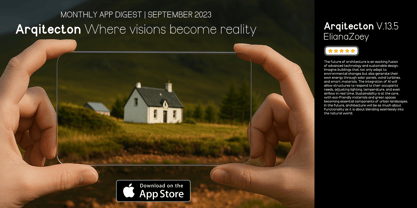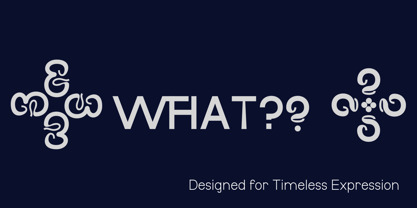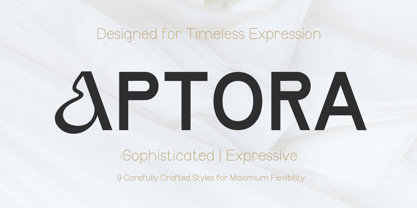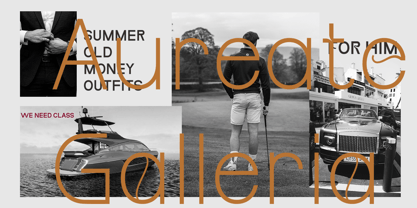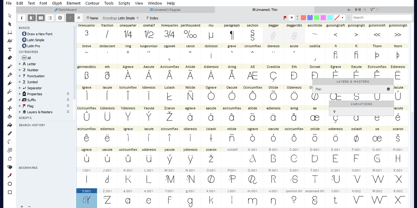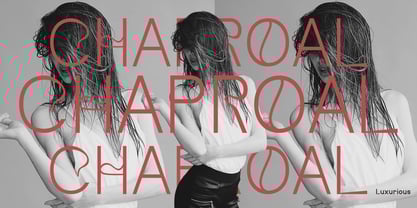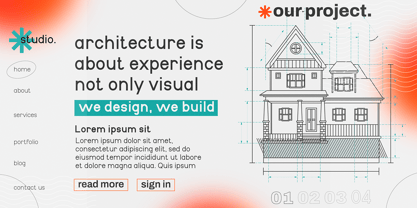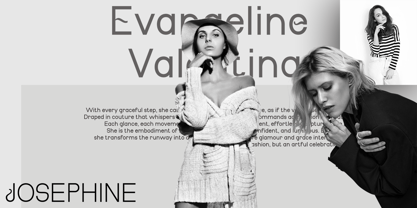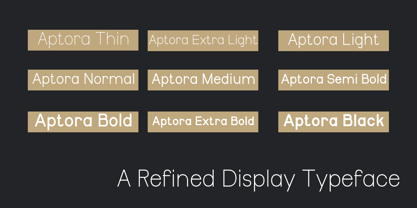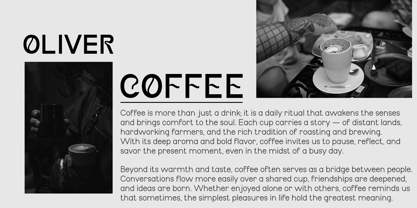
Aptora
The Aptora Font Family was designed by Teuku Muhammad Zaki and published by Zaki Creative. Aptora contains 9 styles. More about this family
Aptora is a modern display typeface crafted for timeless expression. Featuring clean, elegant lines and exceptional versatility, Aptora comes in 9 carefully designed weights — from Thin to Black — offering maximum flexibility for a wide range of creative needs.
Perfect for branding, editorial layouts, posters, digital applications, and projects that demand a sophisticated and expressive touch, Aptora delivers a refined look without sacrificing personality.
Aptora ensures seamless compatibility across professional design platforms. Each style in the Aptora family is meticulously crafted to balance strong structure with subtle, humanist curves.
Key Features:
• 9 weights: Thin, Extra Light, Light, Normal, Medium, Semi Bold, Bold, Extra Bold, Black.
• Ideal for headlines, branding, UI/UX, editorials, posters, and app design.
• Characteristics: sophisticated, expressive, refined, versatile.